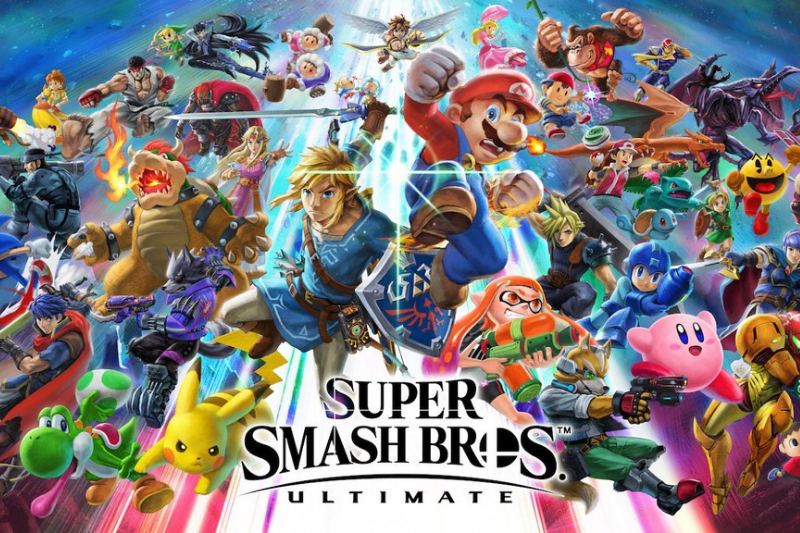
Super Smash Bros Font Generator
About the Super Smash Bros Font Generator
Super Smash Bros has built one of gaming's most iconic visual identities β€” dynamic, colorful lettering full of kinetic energy that captures the chaos and joy of bringing beloved Nintendo characters together to battle. Smash-style typography feels celebratory and competitive at once, instantly recognizable to millions of fans worldwide.
• Tournament bracket headers and event promotional art
• Twitch streaming overlays and alert graphics
• Gaming YouTube channel banners and thumbnails
• Fan merchandise and custom controller skins
• Discord server banners for Smash communities